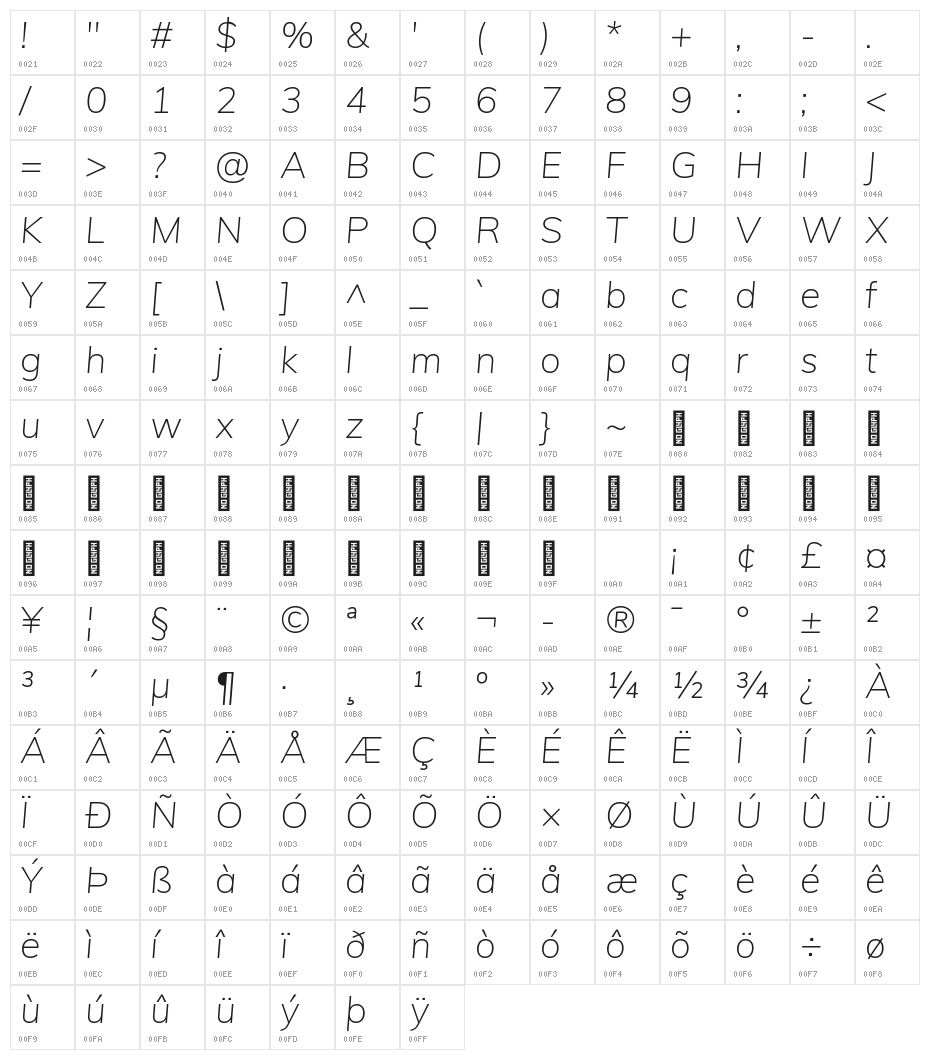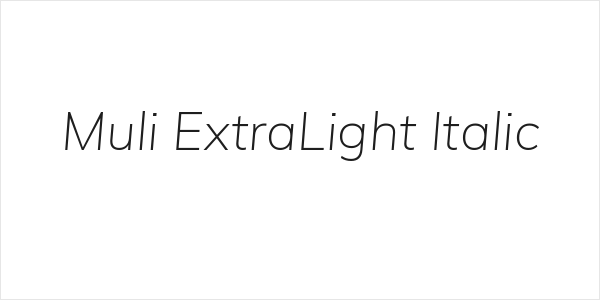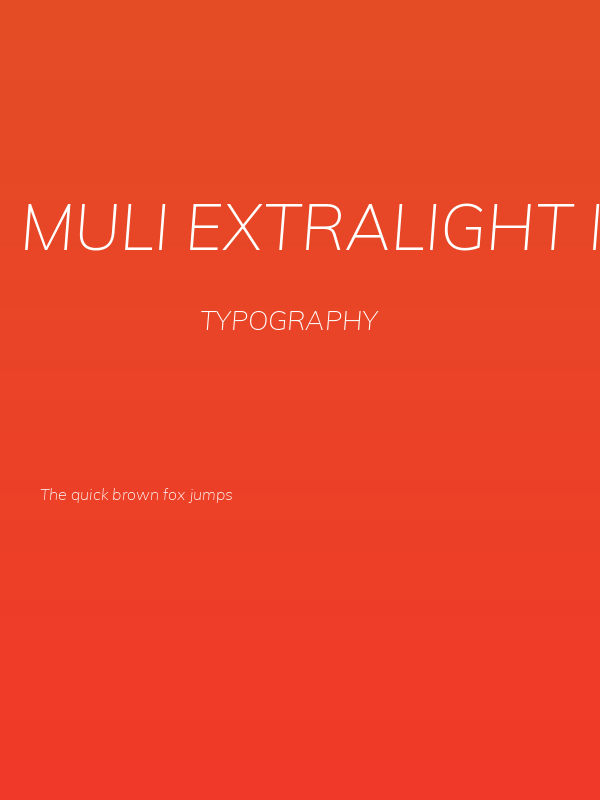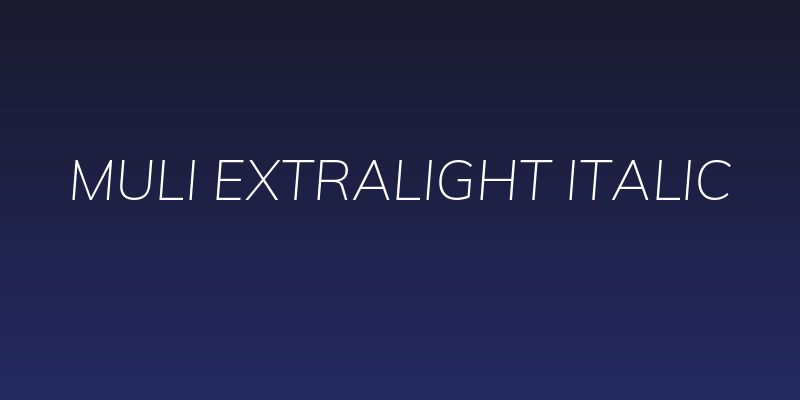
Muli ExtraLight Italic Font
Muli ExtraLight Italic Description
This font exhibits a clean and modern sans-serif style with an extra-light weight, offering a sleek and minimalist appearance. The italicized form adds a subtle elegance, making it suitable for contemporary design projects. Its characters are well-proportioned, with a slight slant that enhances readability while maintaining a sophisticated look. The font's simplicity and clarity make it versatile for various applications, from digital interfaces to print media. Its uniform stroke width and open counters contribute to its legibility, even at smaller sizes. The overall aesthetic is understated yet refined, making it an excellent choice for projects that require a modern and professional touch.
Proposed ProjectsIdeal for digital interfaces, minimalist branding, modern editorial layouts, and professional presentations.